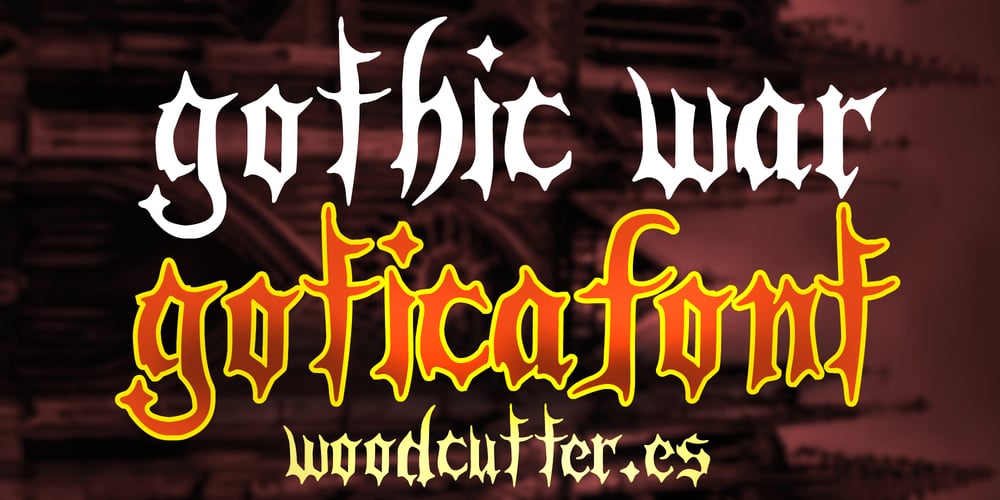
Gothic War Font Family was designed by Jordi Manero and published by Woodcutter. Gothic War contains 1 styles and family package options. “Gothic War font features sharp, gothic-inspired lowercase letters with an organic feel, evoking a sense of medieval warfare and darkness. Ideal for projects seeking to convey a dramatic and ominous atmosphere, this font brings a touch of ancient mystique. Perfect for posters, book covers, and branding, ‘Gothic War’ adds a unique edge to your designs, capturing the essence of gothic aesthetics while maintaining a sense of organic fluidity.”